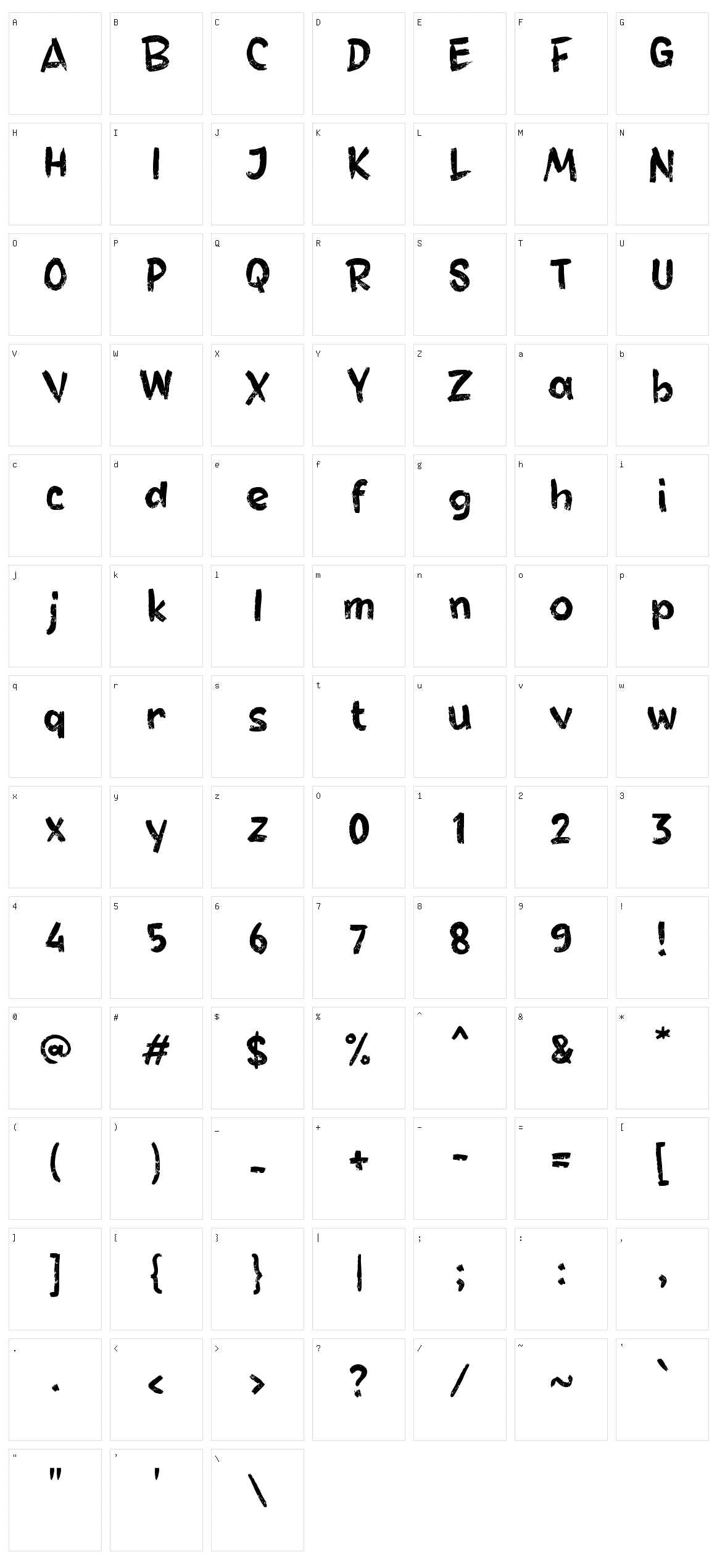
The free font e Erosi is carefully designed by wep, showcasing a thoughtful balance of creativity and usability and falls under the Eroded font style. When you download the ZIP file, it contains only 69.55 KB of font files, making it lightweight and quick to download. Please review the license details below to understand permitted usage and distribution rights. If license information is not available, we recommend using this font for personal projects only or contacting the author directly for commercial usage permissions.